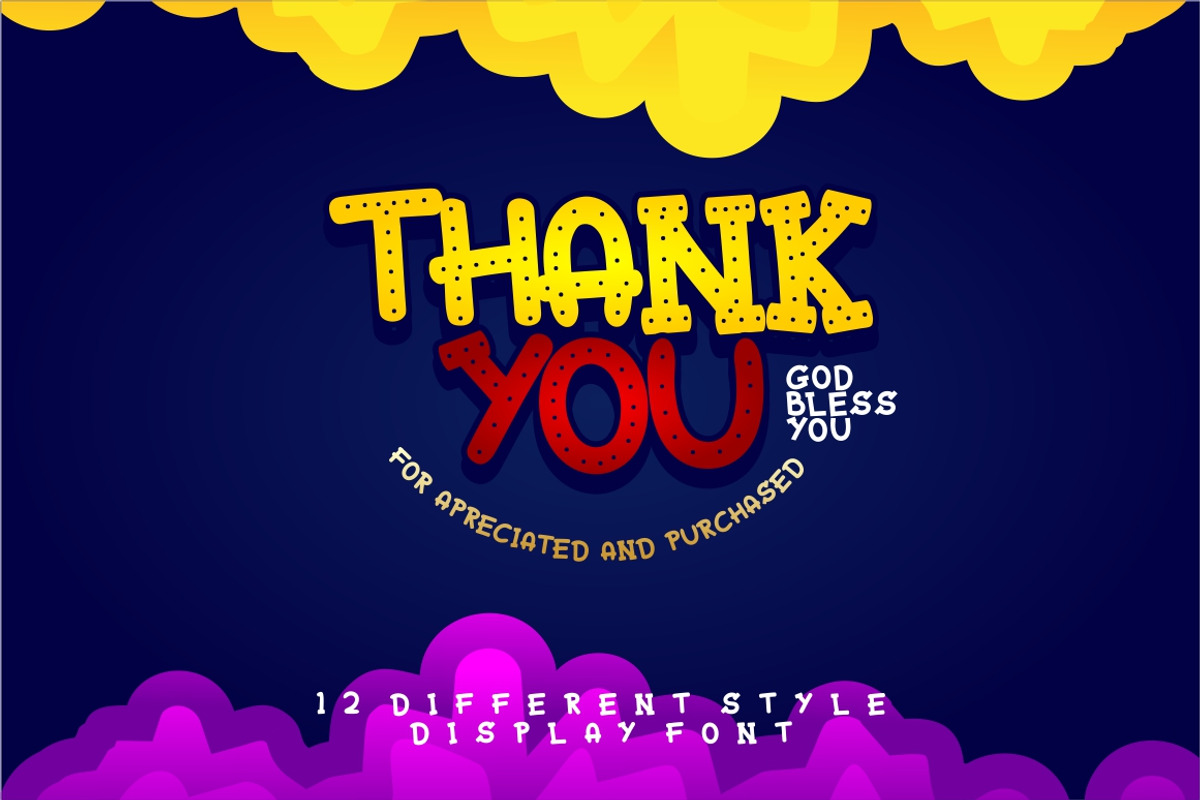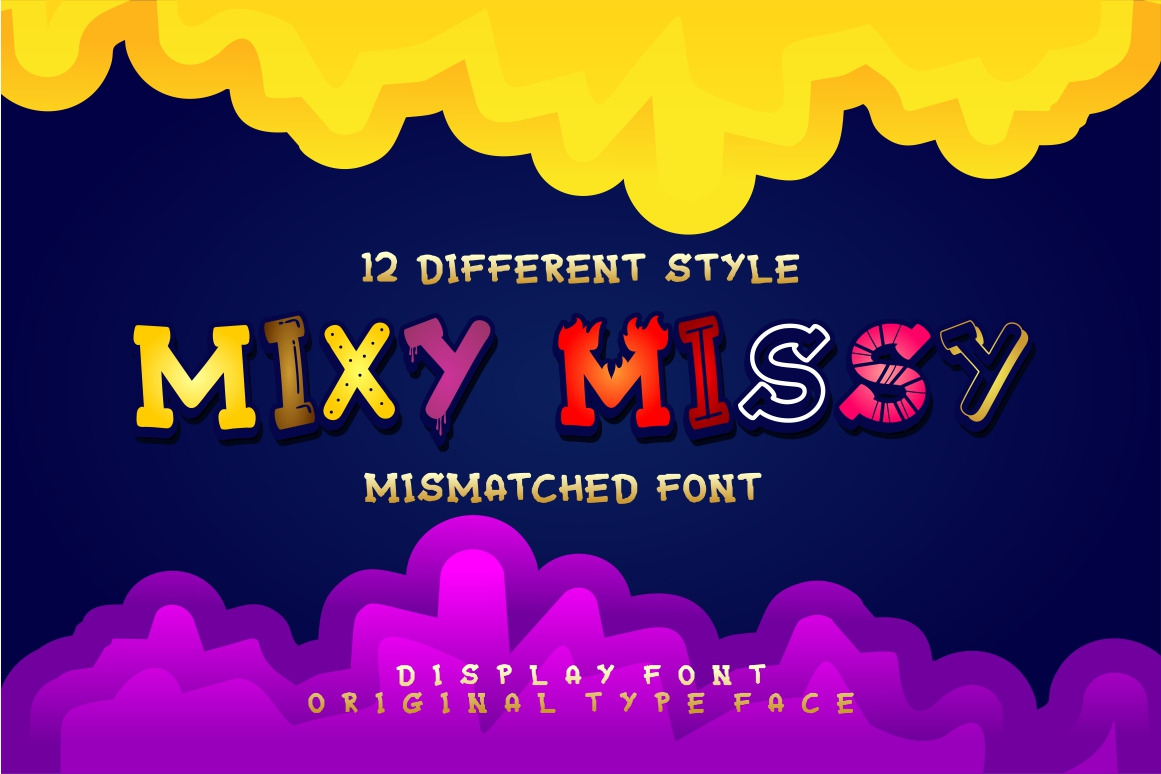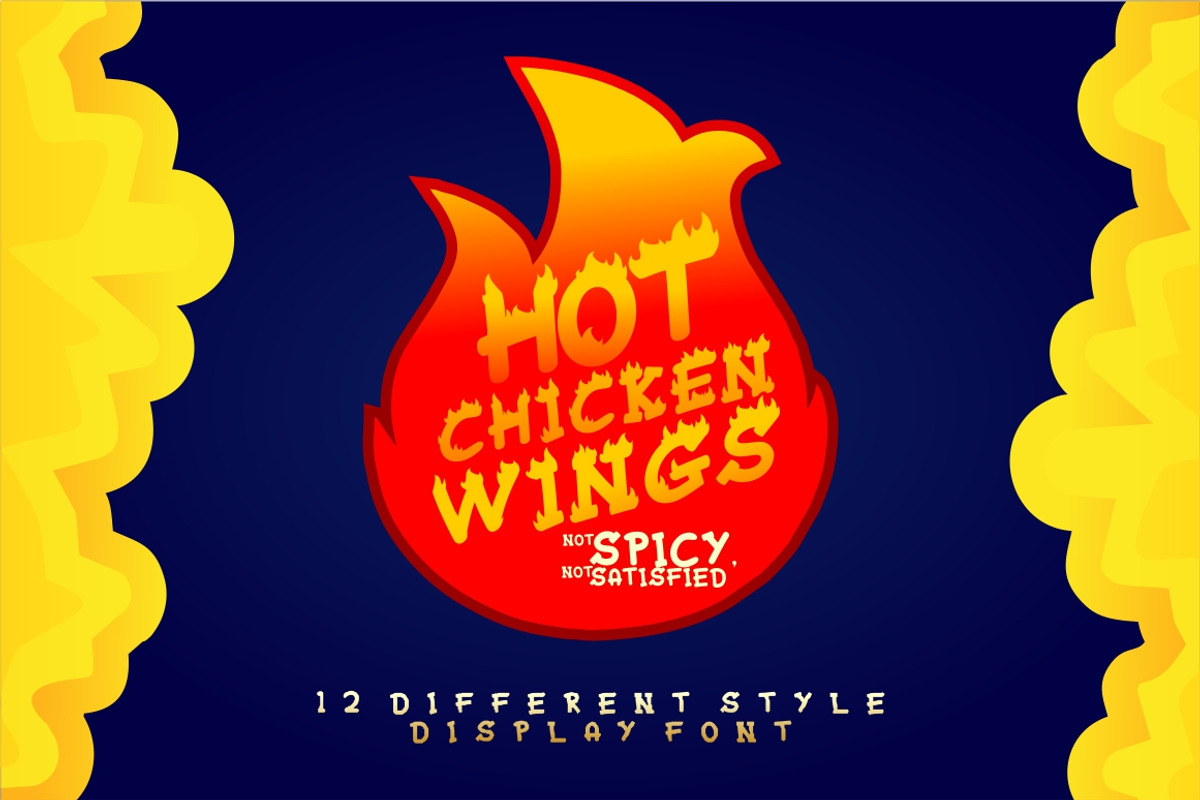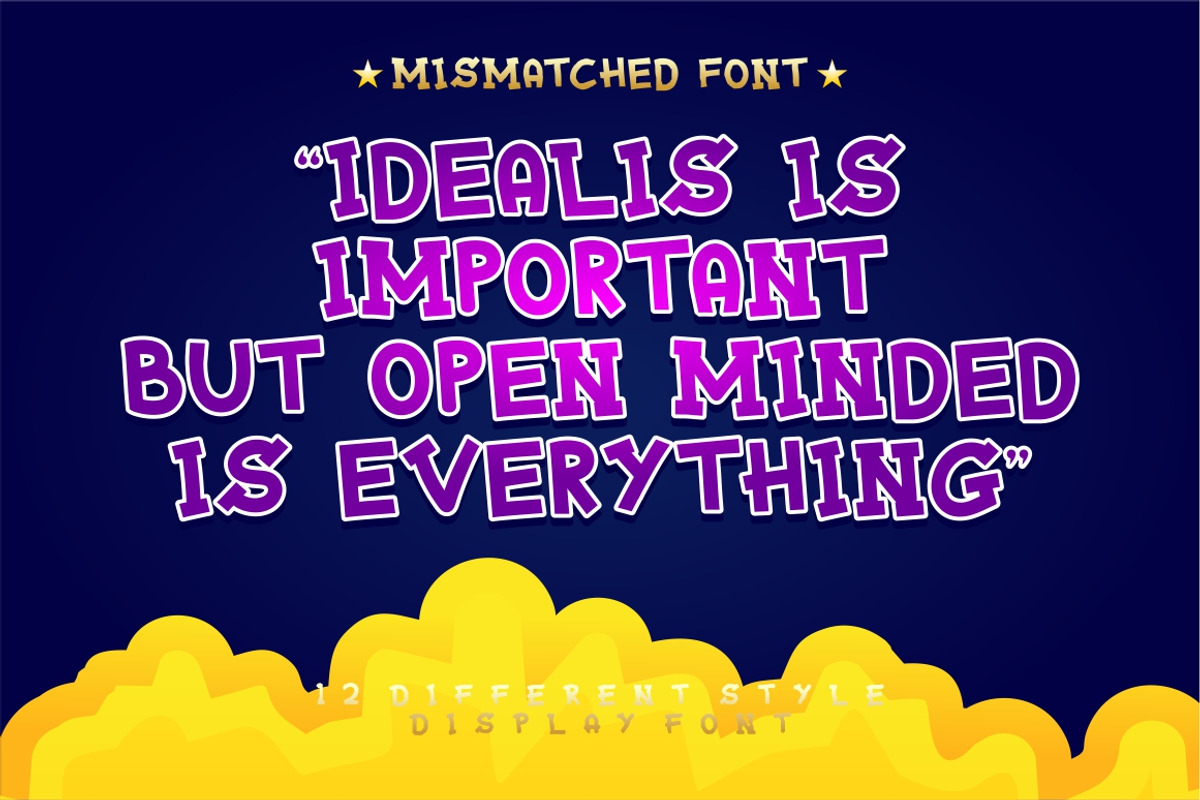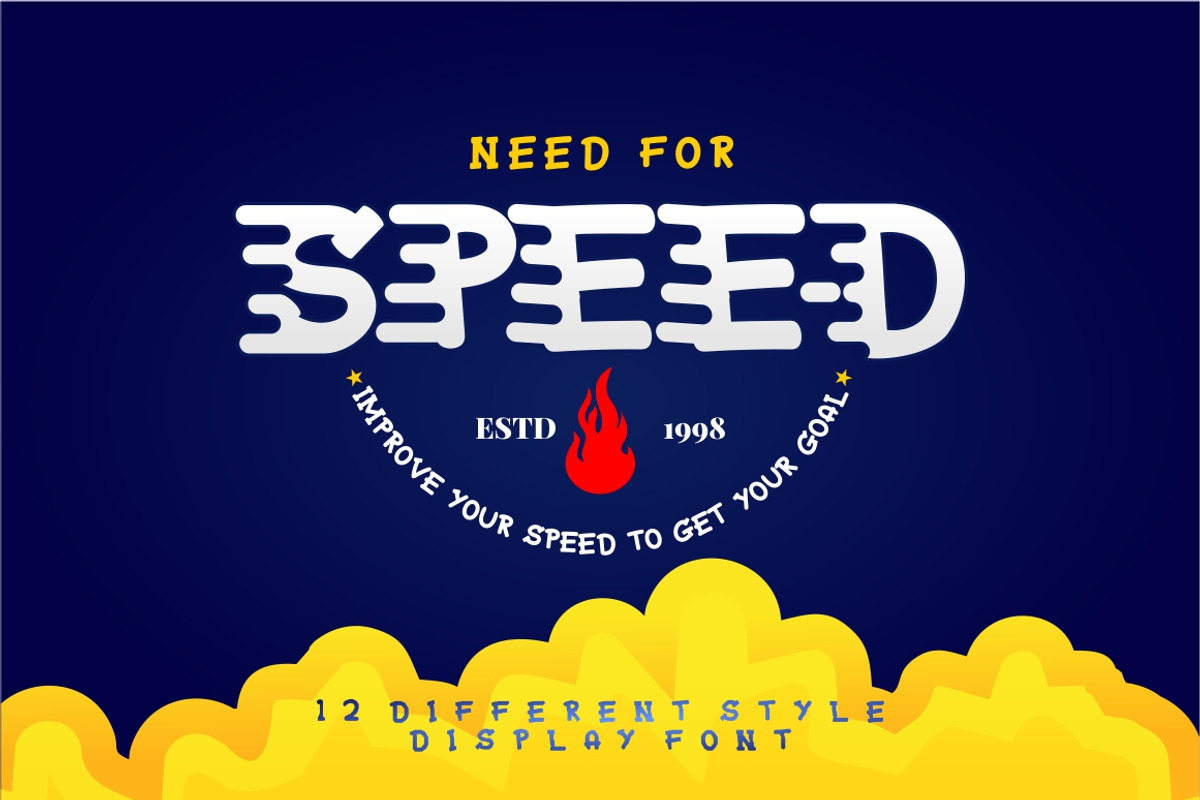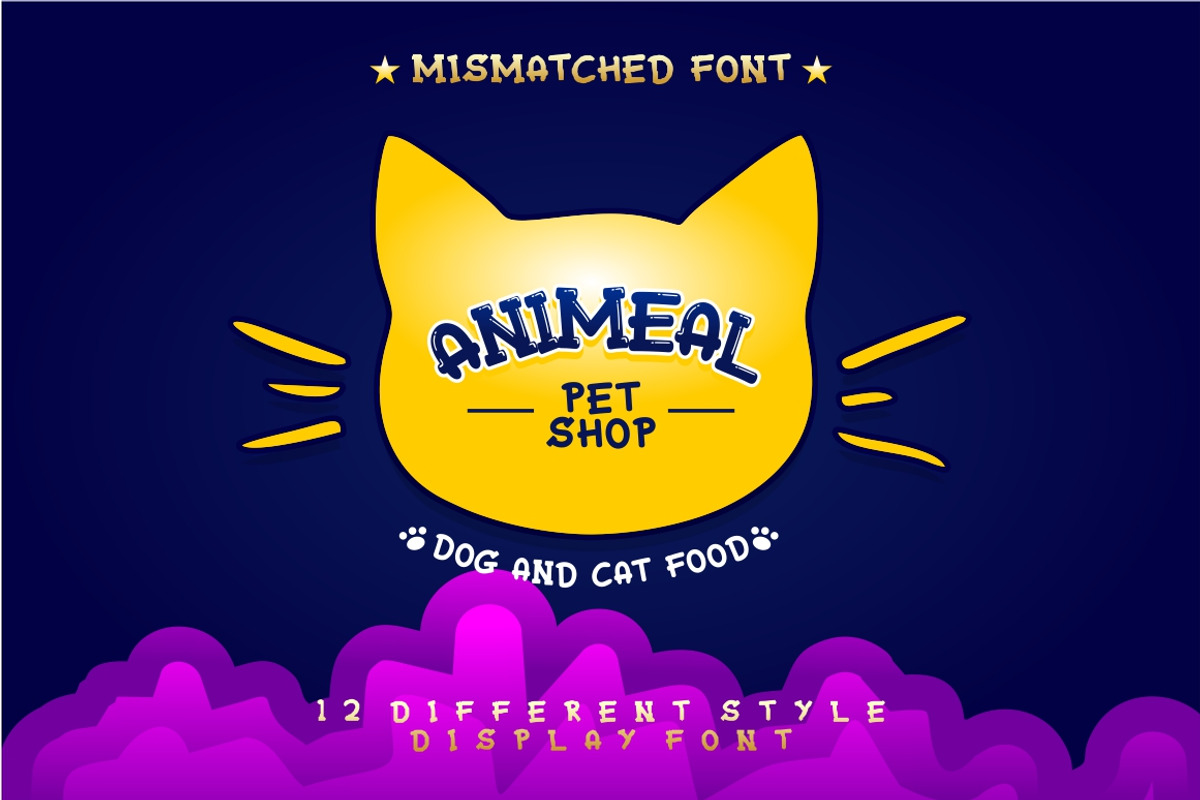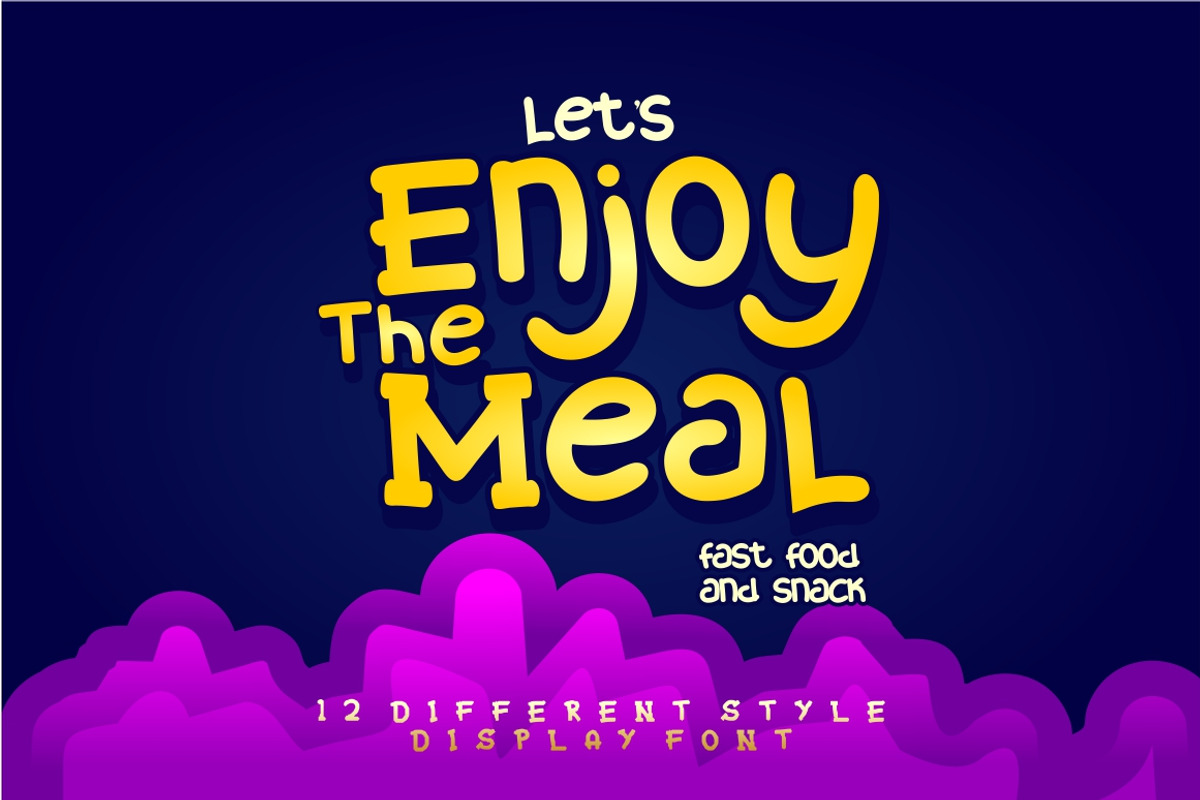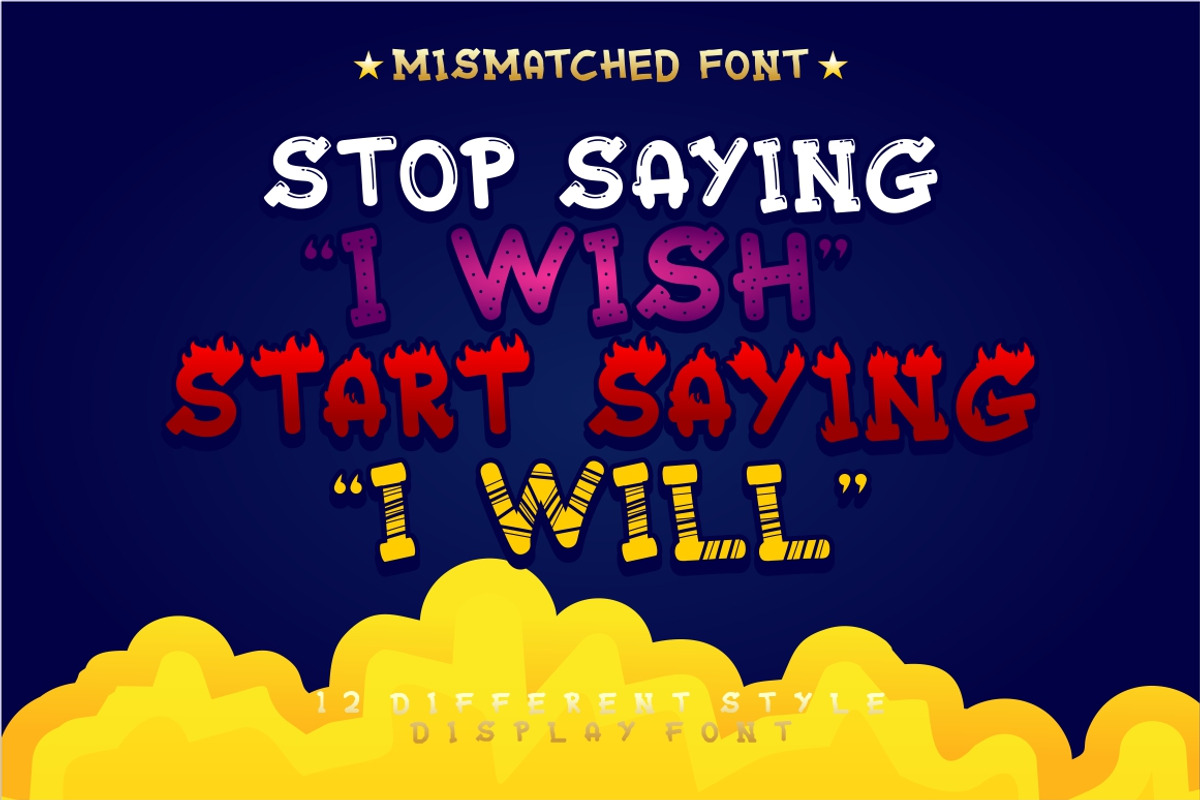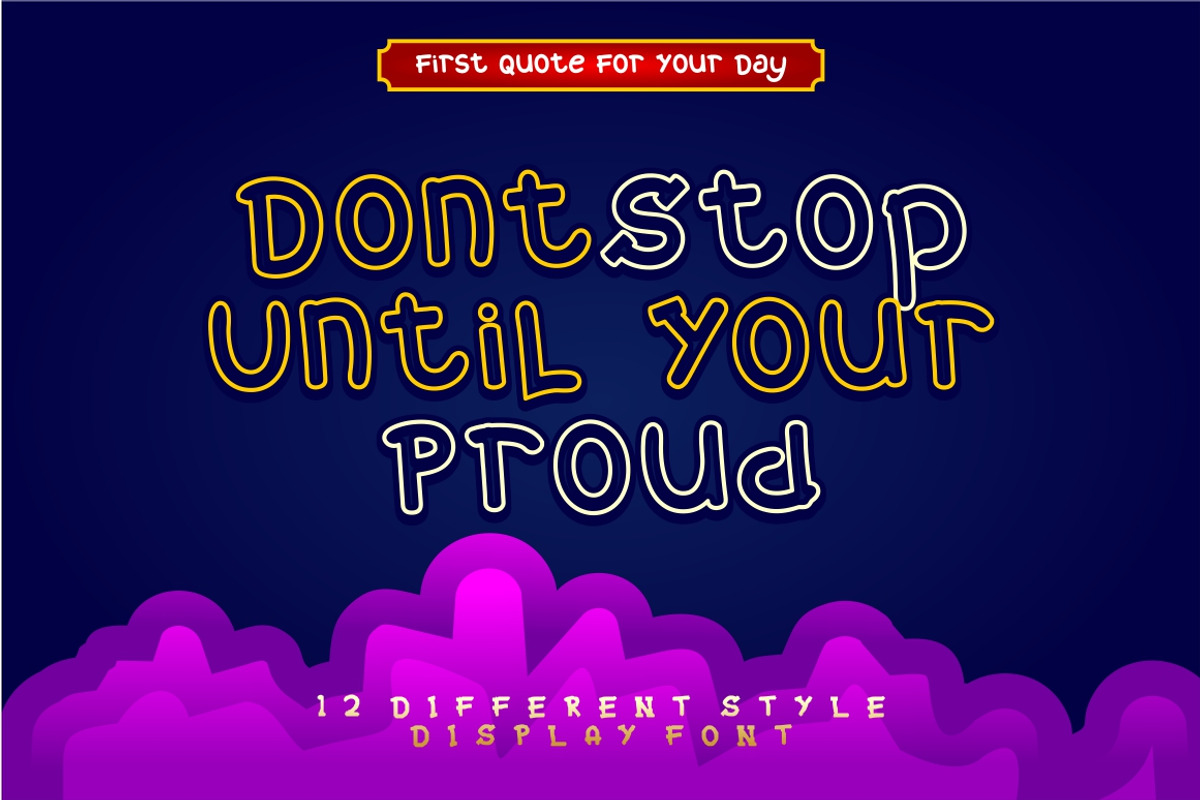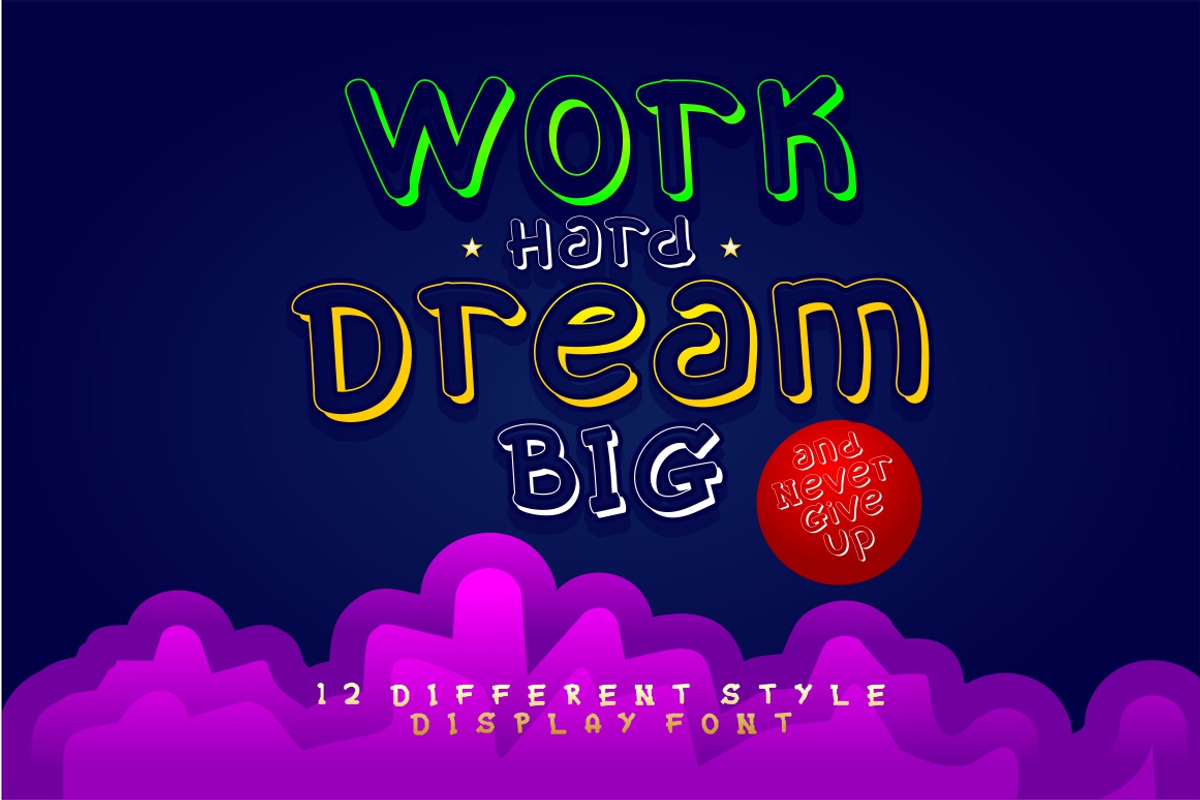
Mixy Missy - 12 Styles Display Font
Introducing ... Mixy Missy - 12 Style Display Font
Mixy Missy is a fun display font with 12 different styles. This font is very unique and creative. Each style can be used for different purposes, and each style can be combined with another style. Enjoy this font :)
Ideal for logos, badge, label, apparel, club, event, handwritten quotes, product packaging, header, poster, merchandise, social media & greeting cards.